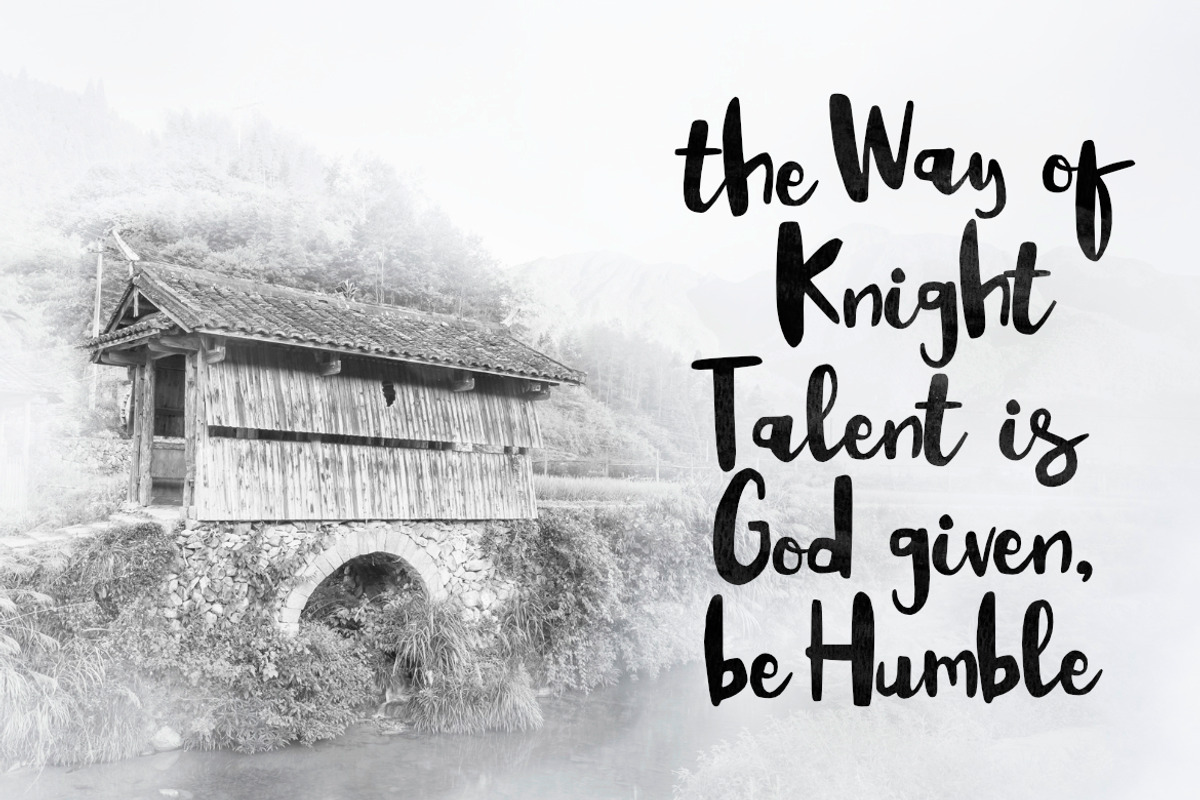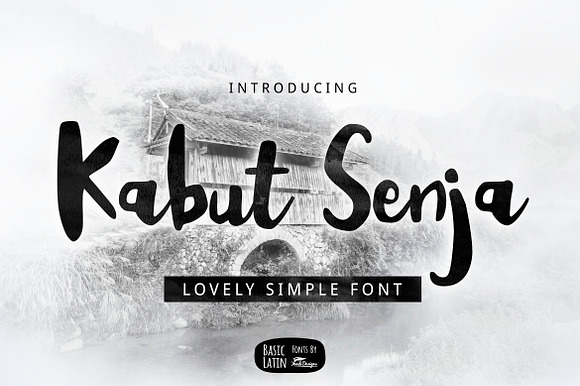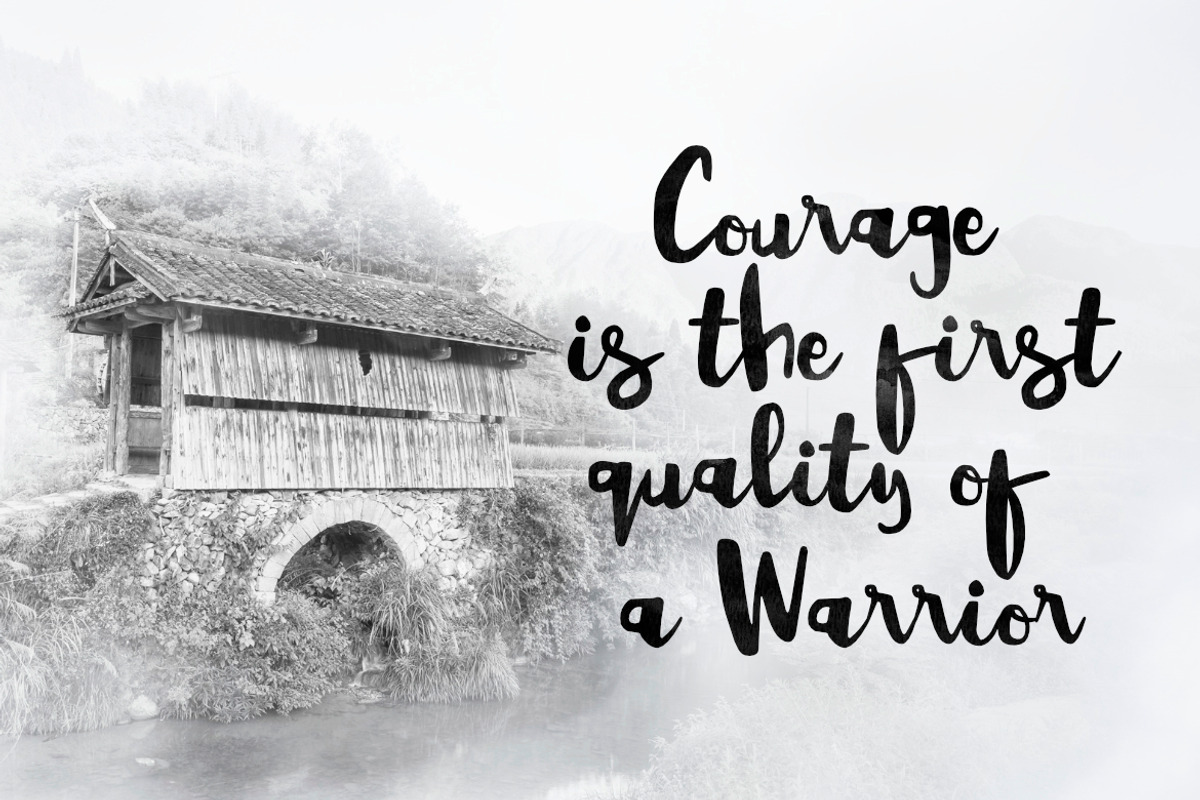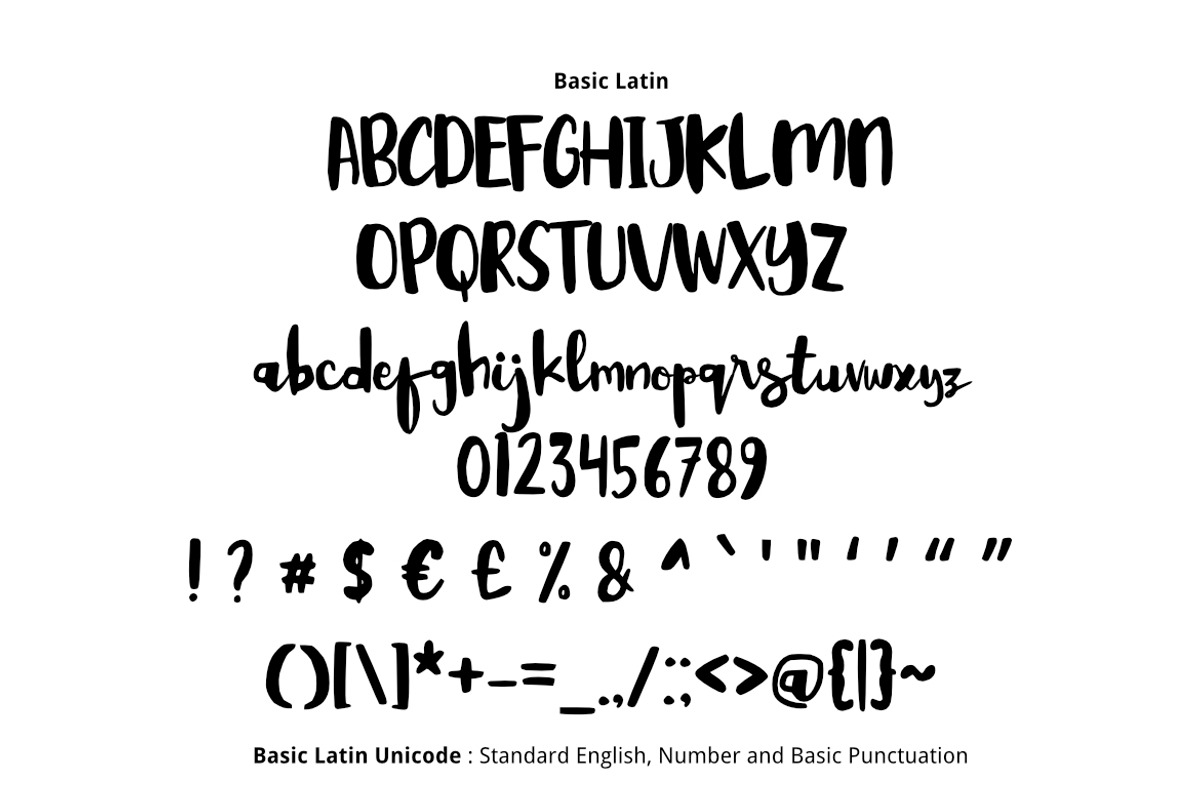
Kabut Senja Brush Font
Kabut Senja or in English "Twilight Mist" is lovely and simple artistic multipurpose brush font , suitable for many project children book, quotes, logo , heading , title etc.
Why Kabut Senja Brush Font is worth a look
Kabut Senja Brush Font by YandiDesigns fits naturally into Branding, posters, packaging, typography.